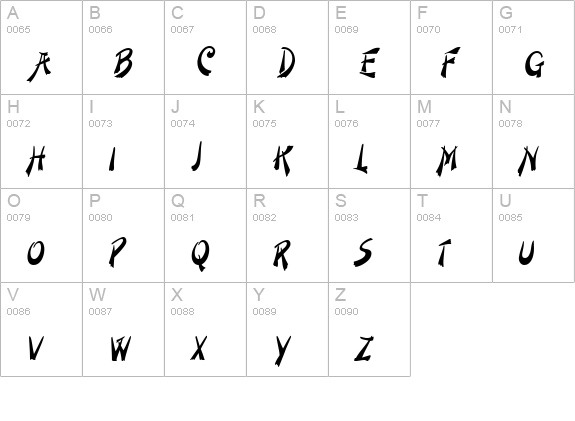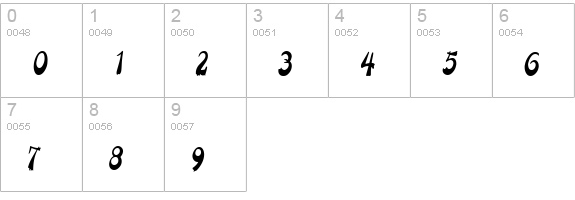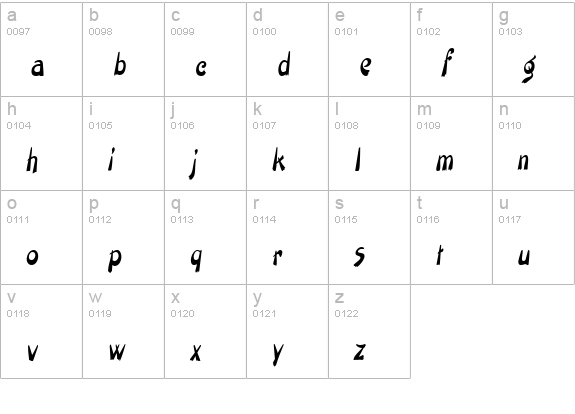
PainterNarrow Italic is a distinctive, italic variant in the PainterNarrow typeface family \xE2\x80\x94 well suited to design and typography projects.
PainterNarrow Italic font is a stylish and elegant typeface that is perfect for adding a touch of sophistication to any design project. Its narrow and slanted letterforms give it a unique and modern look, making it ideal for headings, titles, and logos. The delicate curves and subtle strokes of PainterNarrow Italic font create a sense of movement and fluidity, adding a dynamic element to your designs. This font is not only visually appealing but also highly versatile. It can be used in a variety of design contexts, from print materials such as magazines and brochures to digital media like websites and social media graphics. PainterNarrow Italic font is a great choice for any project that requires a sleek and contemporary aesthetic. What makes this font even more appealing is that it is freely available to download at FontsMarket.com. You can easily access this font and incorporate it into your designs without any hassle. Whether you are a professional designer or a hobbyist, PainterNarrow Italic font is a valuable addition to your font library. So, if you are looking for a font that combines elegance, modernity, and versatility, look no further than PainterNarrow Italic font. Download it for free at FontsMarket.com and elevate your designs to a whole new level.